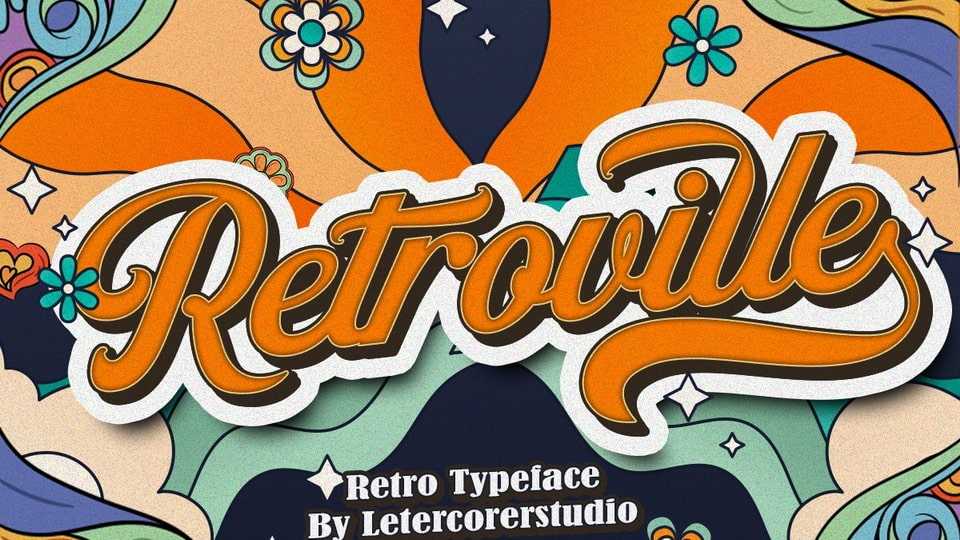
Download Retroville font, a retro bold script that will bring you back to the 60s feel. Retroville font is perfectly made to be applied especially in logos, and other various graphics such as posters, labels, magazines and so on.
Designer: Lettercorner Studio